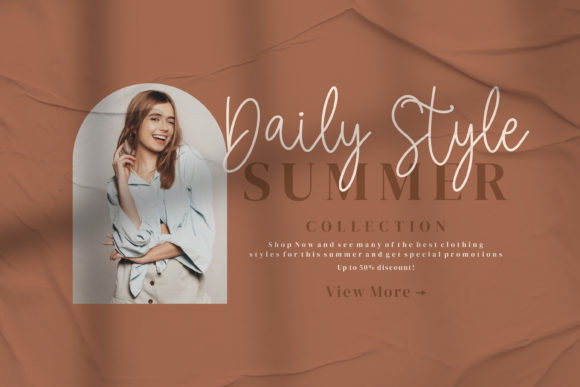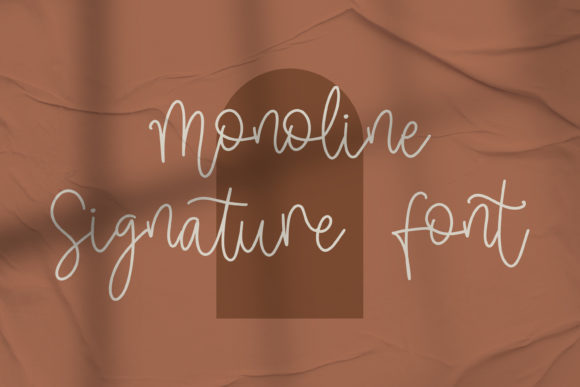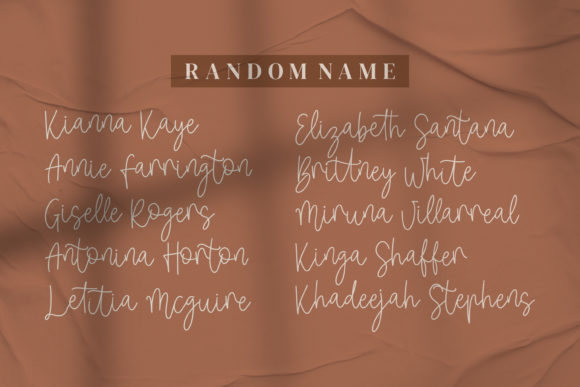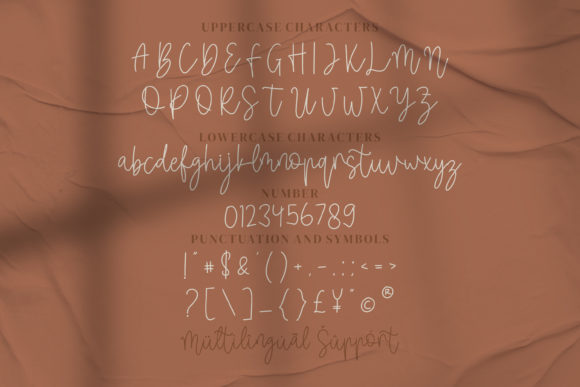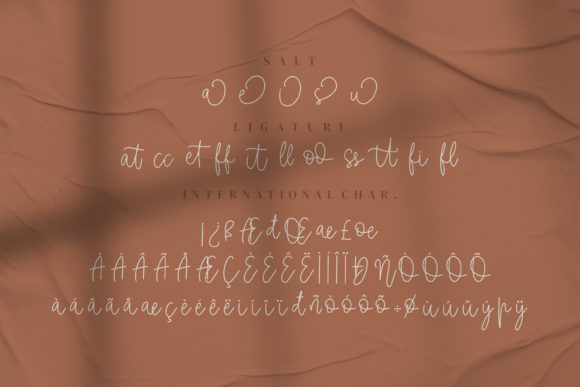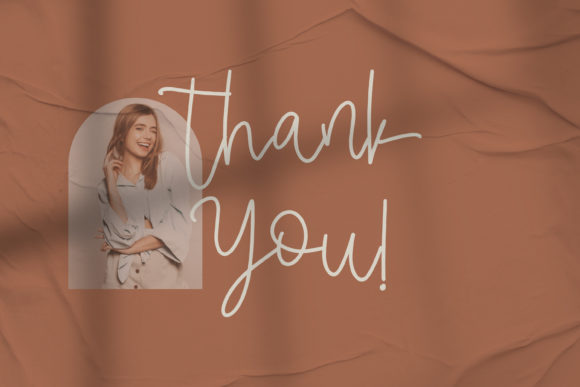
Utophia Elizabets Font
About Utophia Elizabets Font
Utophia ElizabetsĀ is a sweet and delicate handwritten font. Dainty and joyful, this font will be ideal for writing wedding invitations, cards or any other design that may need a romantic, personalized touch!